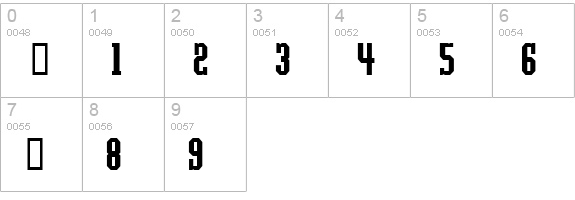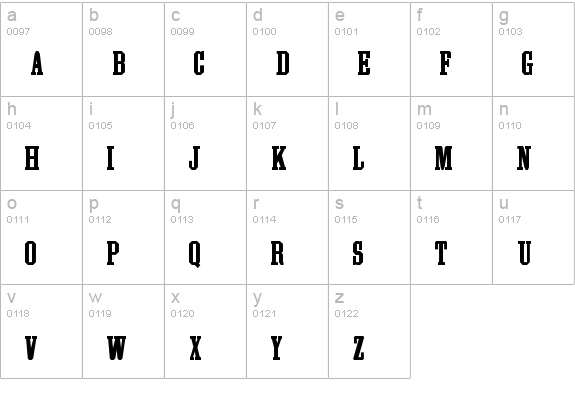
Athletic Supporter Font Details
Athletic Supporter font is a bold and dynamic typeface that exudes strength and energy. With its sleek lines and athletic-inspired design, this font is perfect for sports-related projects, fitness branding, and anything that requires a bold and powerful aesthetic. The letters are carefully crafted to convey a sense of movement and agility, making it an ideal choice for posters, banners, and promotional materials. What's even better is that Athletic Supporter font is available for free download at FontsMarket.com! This means you can easily access this versatile typeface and use it in your projects without any cost. So why wait? Add a touch of athleticism and vigor to your designs with Athletic Supporter font today!